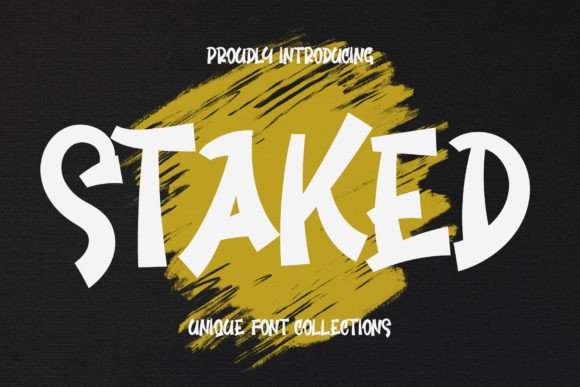
Staked: A Display Font That Elevates Editorial Design
As someone who designs magazine spreads, crafts ebook covers, and fine-tunes newsletter headers for creators across niches, I’ve learned that a single display font can quietly shape how readers perceive authority, warmth, and intention. Staked is one of those rare typefaces — not just visually compelling, but editorially intelligent. It’s a display font with presence and poise: clean yet expressive, structured yet inviting. Its letterforms balance subtle contrast, graceful curves, and confident spacing — making it ideal for moments where you need typography to do more than label — to resonate.
Where Staked Fits in Your Editorial Workflow
Staked isn’t built for body text. It’s designed for impact — for the first thing readers see, not the last thing they read. That makes it exceptionally effective in contexts where hierarchy and tone matter most: magazine covers, blog post headers, ebook titles, chapter openers, and branded quote graphics. Its rhythm supports visual breathing room, so even at larger sizes, it avoids visual fatigue. In print layouts, Staked holds its shape crisply on coated stock; in digital exports (PDFs, EPUBs, or web embeds), it renders cleanly across devices — especially when exported as outlined vector text or served via licensed web font services.
Covering Ground — Literally and Visually
Whether you’re designing a quarterly digital magazine on sustainable living or a printable wedding planning guide, Staked adds distinction without distraction. Its upright stance and balanced proportions give it quiet confidence — perfect for brands that value clarity over flash. On a cover, it pairs naturally with generous whitespace and restrained photography. As a title font for a coaching workbook or a seasonal recipe ebook, Staked conveys care and craftsmanship — qualities readers associate with trusted content.
Using Staked With Intention — Not Just Decoration
Display fonts like Staked earn their place when used deliberately. Think beyond “big and bold”: use it to signal transitions (a new section in a long-form newsletter), highlight thematic anchors (a recurring motif like “Rooted” or “Gathered” across a content series), or reinforce brand voice (e.g., calm authority for a mental wellness publication, gentle sophistication for a botanical journal). It works especially well for pull quotes set against soft backgrounds — its letter spacing allows light to breathe around each word, keeping emphasis legible and elegant.
Pairing Staked Thoughtfully
A strong display font needs thoughtful companionship. For body copy, pair Staked with a highly readable serif — think Merriweather, Lora, or EB Garamond — to ground expressive headings in typographic tradition. For captions, subheads, or navigation menus, choose a neutral sans serif like Inter, Open Sans, or Work Sans: clean, functional, and unobtrusive. Avoid pairing Staked with other high-contrast or decorative fonts — it doesn’t need competition. Its strength lies in contrast, not clutter.
Practical Considerations for Creators
Mobile, Print, and Accessibility Notes
On mobile screens, Staked shines at headline sizes (32px and up) but shouldn’t be scaled down for interface labels or footnotes. For PDF exports, embed the font fully — or outline text — to preserve fidelity. In print, test at 100% scale on your intended paper stock: its stroke weight holds up beautifully on matte finishes but gains extra warmth on uncoated textures. While Staked isn’t intended for long-form reading, it meets WCAG contrast minimums when paired with dark type on light backgrounds — essential for quote graphics shared on social media or embedded in accessible newsletters.
Real-World Uses That Stand Out
What sets Staked apart isn’t novelty — it’s reliability with character. It doesn’t shout. It settles in, adds weight, and invites attention without demanding it. In an era where readers scroll fast and decide faster, that kind of quiet authority is rare. When your goal is to build trust through design — not just decorate content — Staked becomes more than a font. It becomes part of your editorial signature.